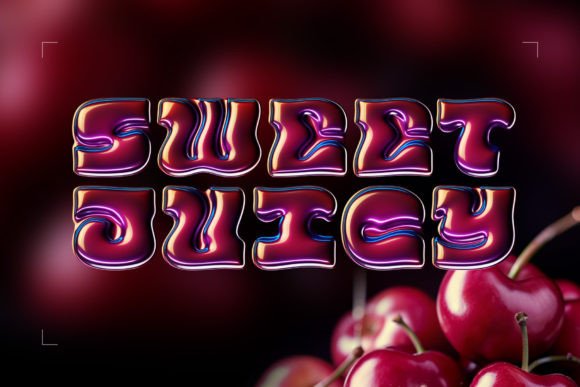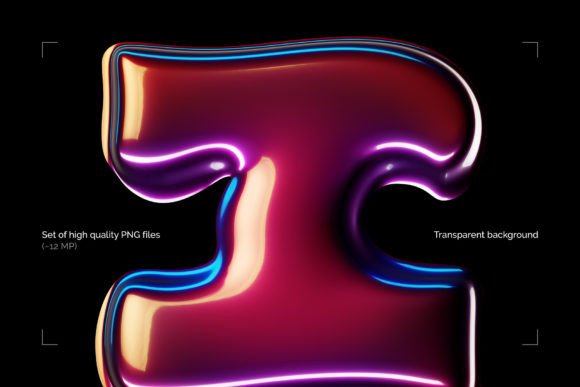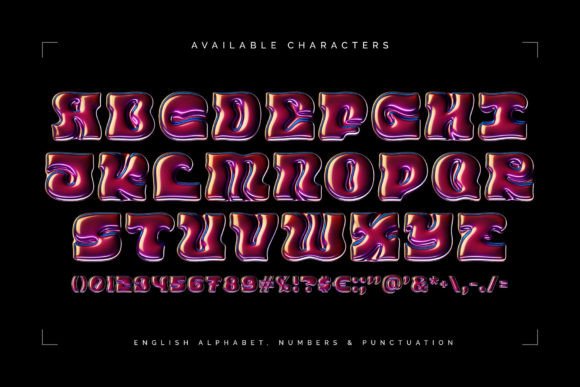
Introduction to Glossy Cherry Font
Presenting a fancy creative font set – Glossy Cherry It’s a 3d rendered high-quality typeface with a smooth colorful surface that looks like a cherry berries.
Key Features of Glossy Cherry Font